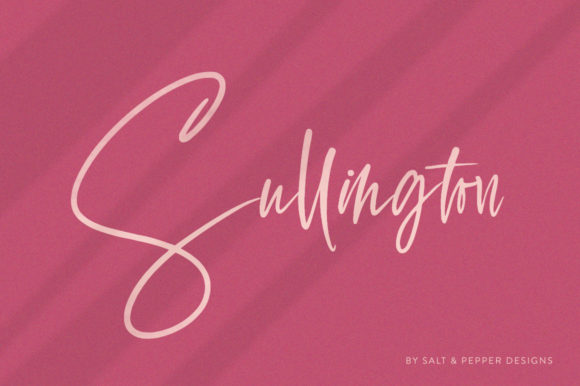
Dive into the world of exquisite penmanship with Sullington Script, a remarkable script font that will elevate your designs to new heights. Crafted with meticulous attention to detail, Sullington Script boasts an extensive array of characters and an alluring collection of stylish ligatures, promising to transform your creative visions into stunning realities.
Indulge in the beauty of Sullington Script's graceful lines and sweeping curves, meticulously crafted to impart a sense of timeless elegance to your projects. Whether you're a seasoned designer or just starting, Sullington Script will effortlessly enhance your creations, adding a touch of sophistication and charm to every word you write.
Harness the power of Sullington Script to bring your artistic aspirations to life. Let your imagination soar as you explore the endless possibilities this remarkable font presents. From heartfelt love letters to captivating marketing campaigns, Sullington Script will become your trusted companion, adding a touch of magic to every word you create.
Unleash the full potential of Sullington Script by pairing it with serifs, creating harmonious compositions that exude elegance and visual appeal. Watch as your designs seamlessly blend the charm of the past with the vibrancy of the present, captivating your audience and leaving a lasting impression. Don't miss this opportunity to add Sullington Script to your font collection and unlock a world of boundless creativity.